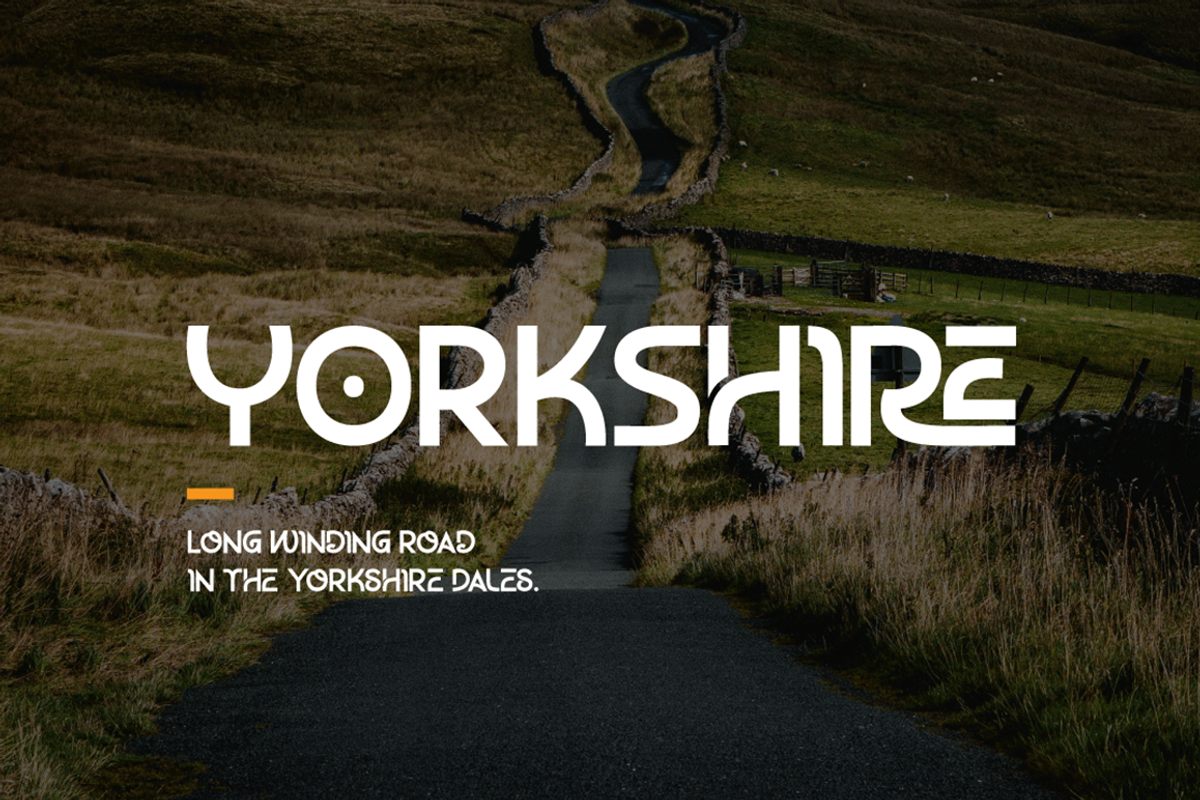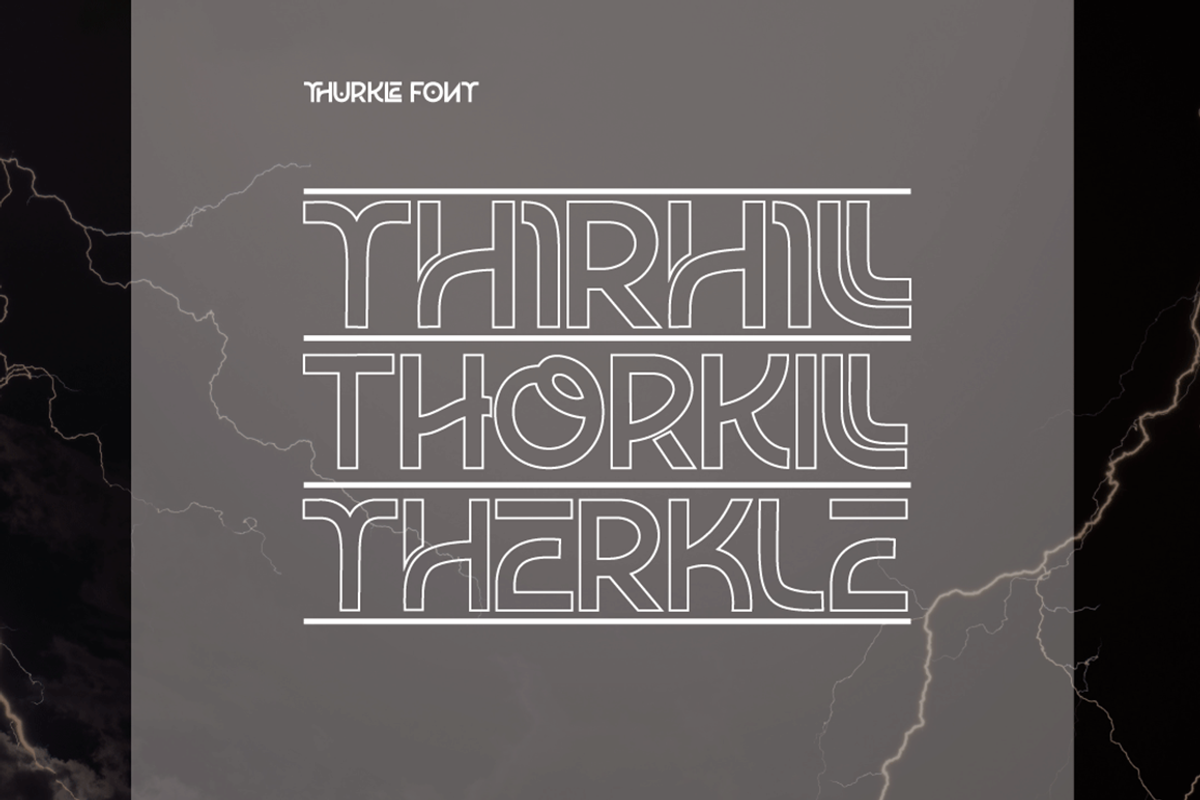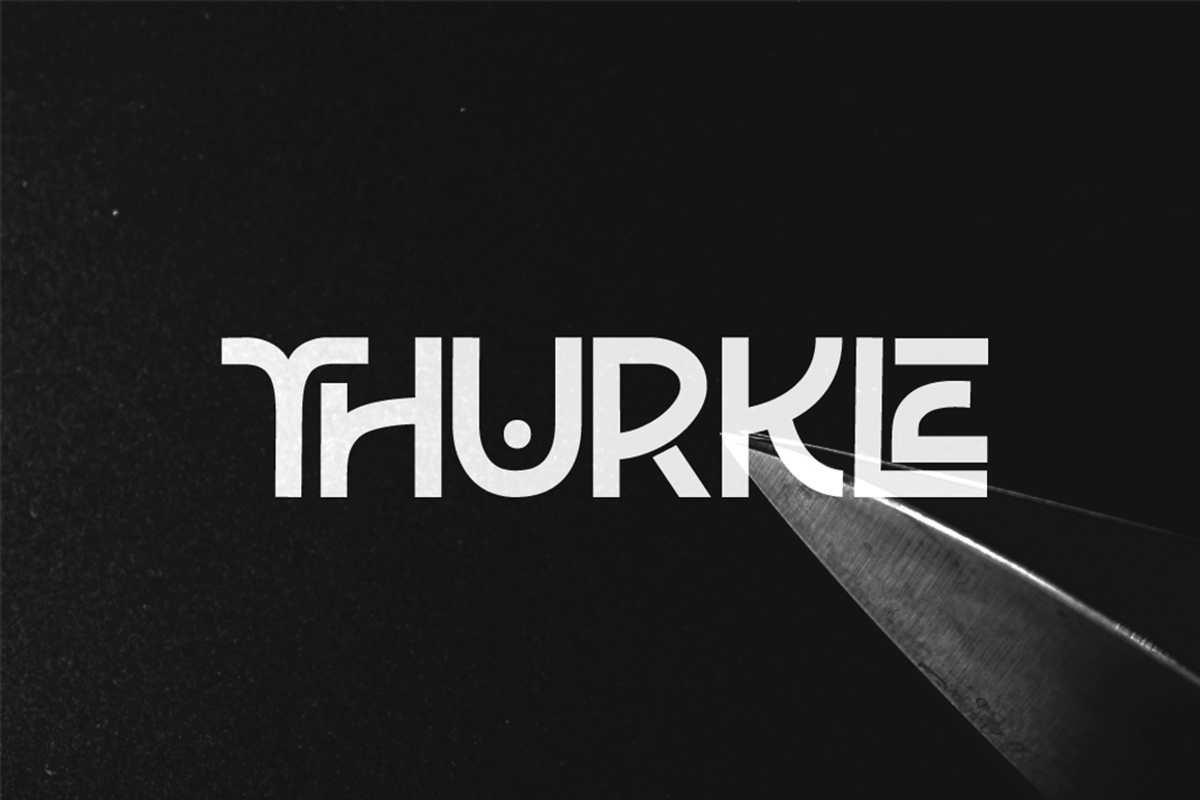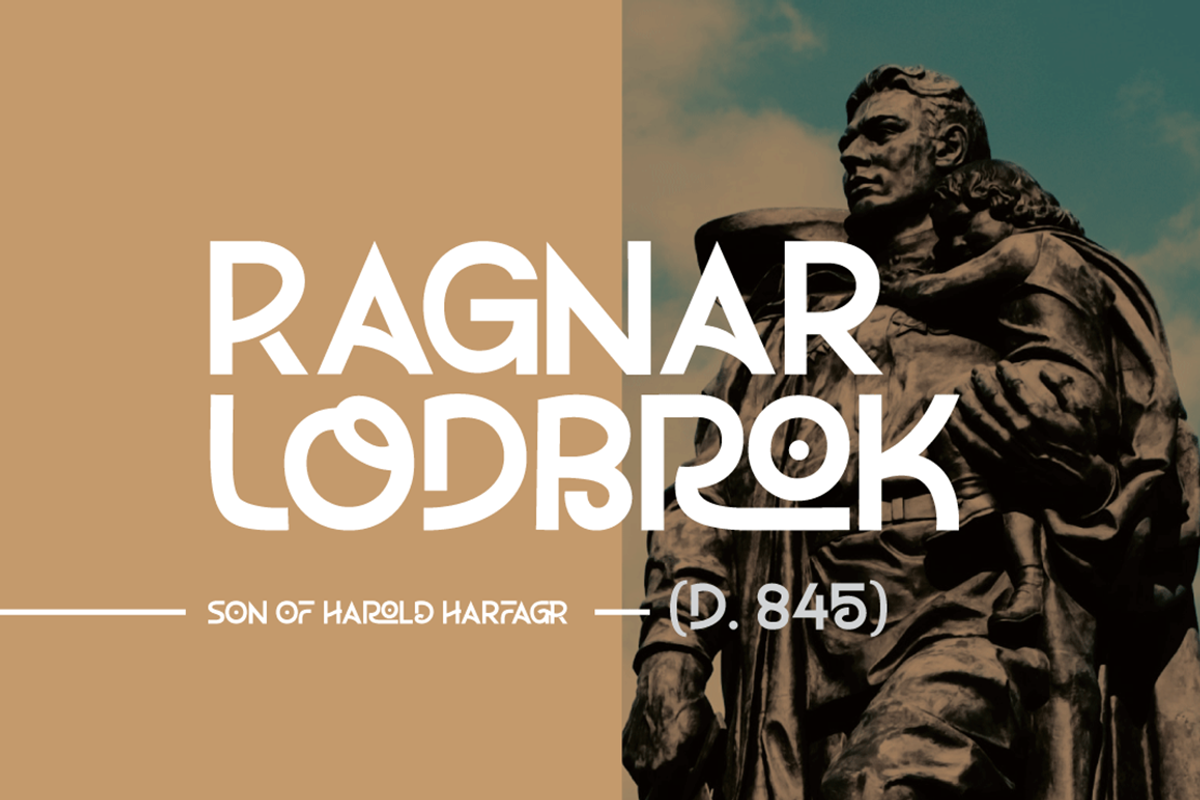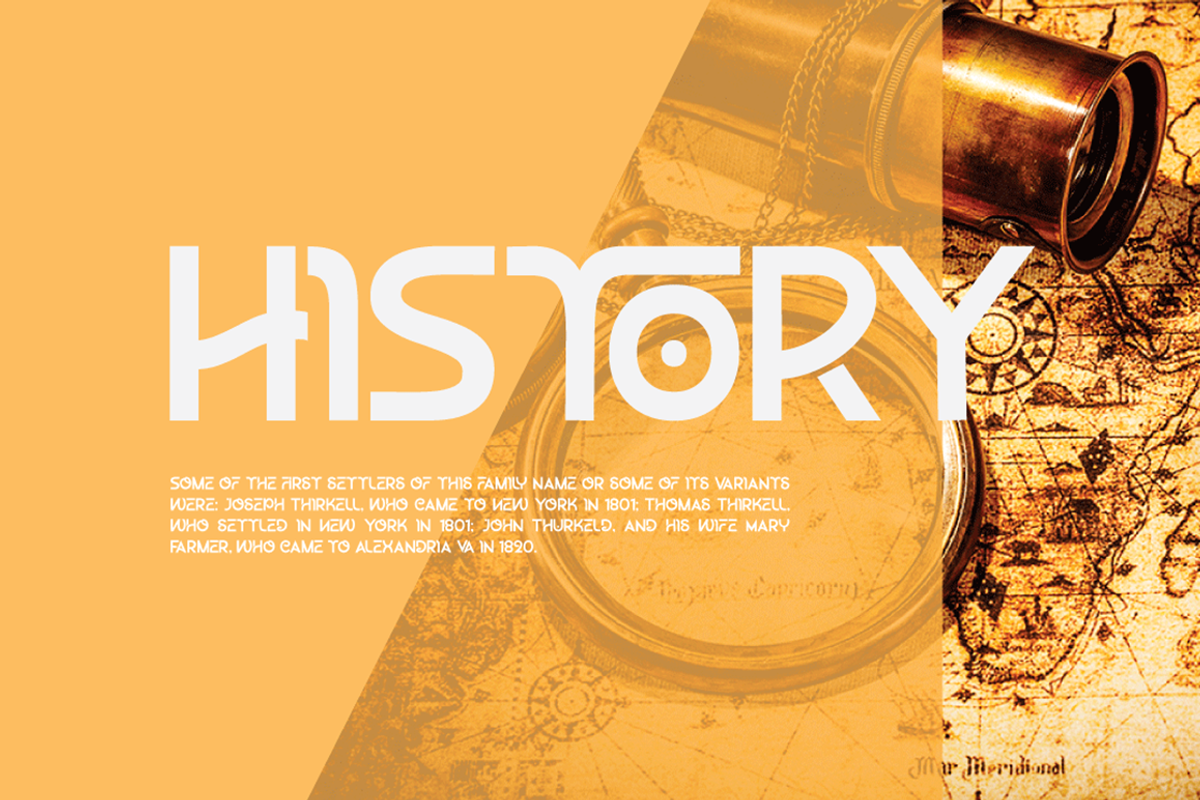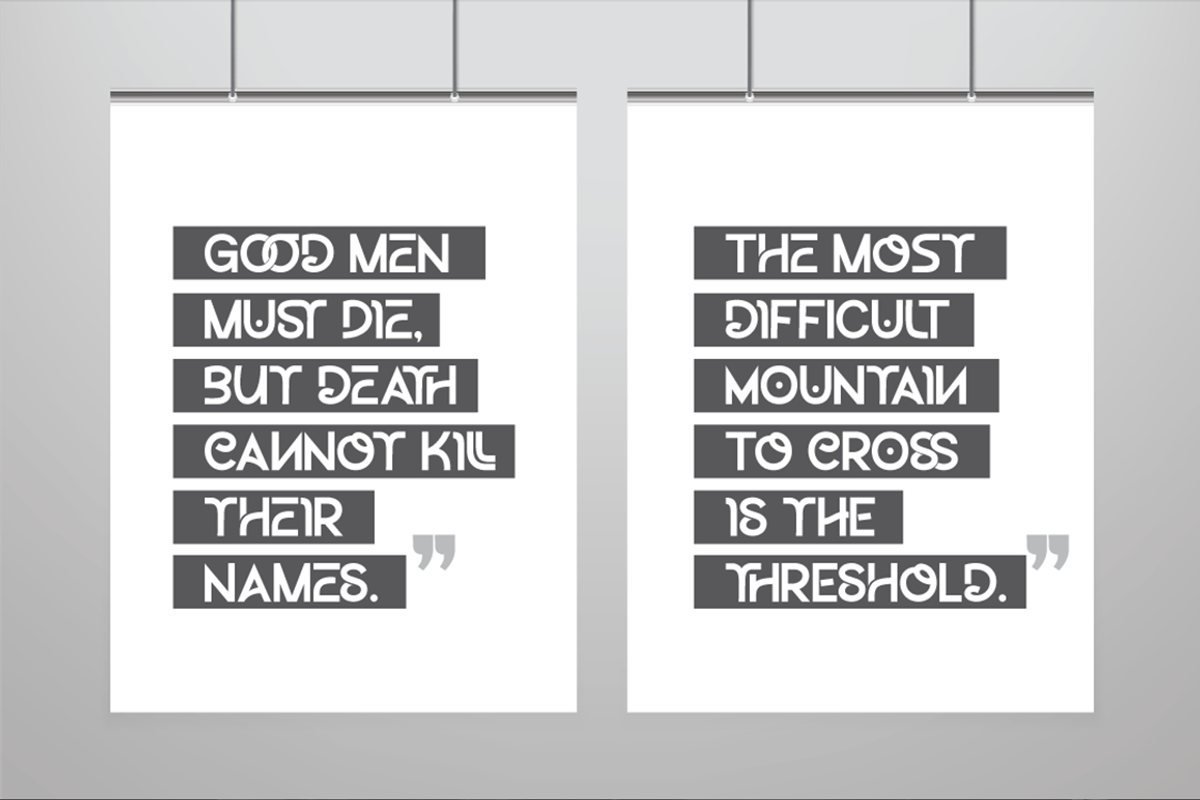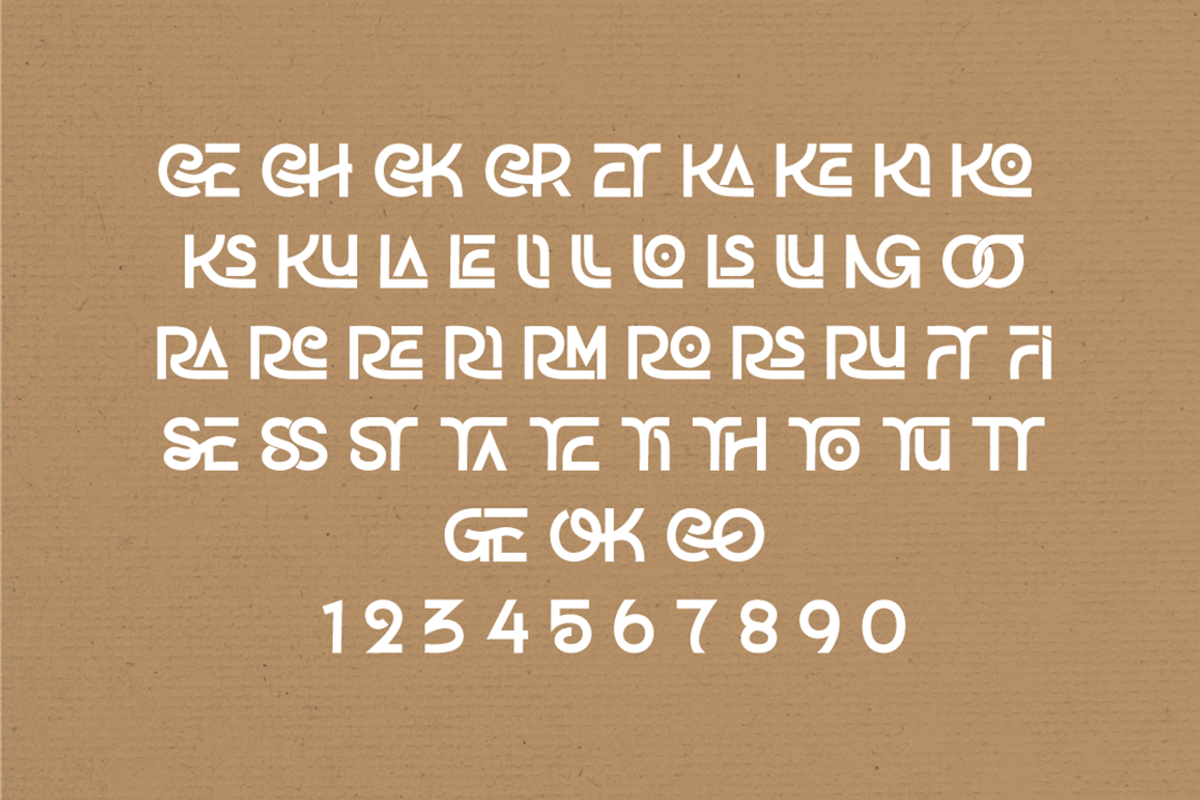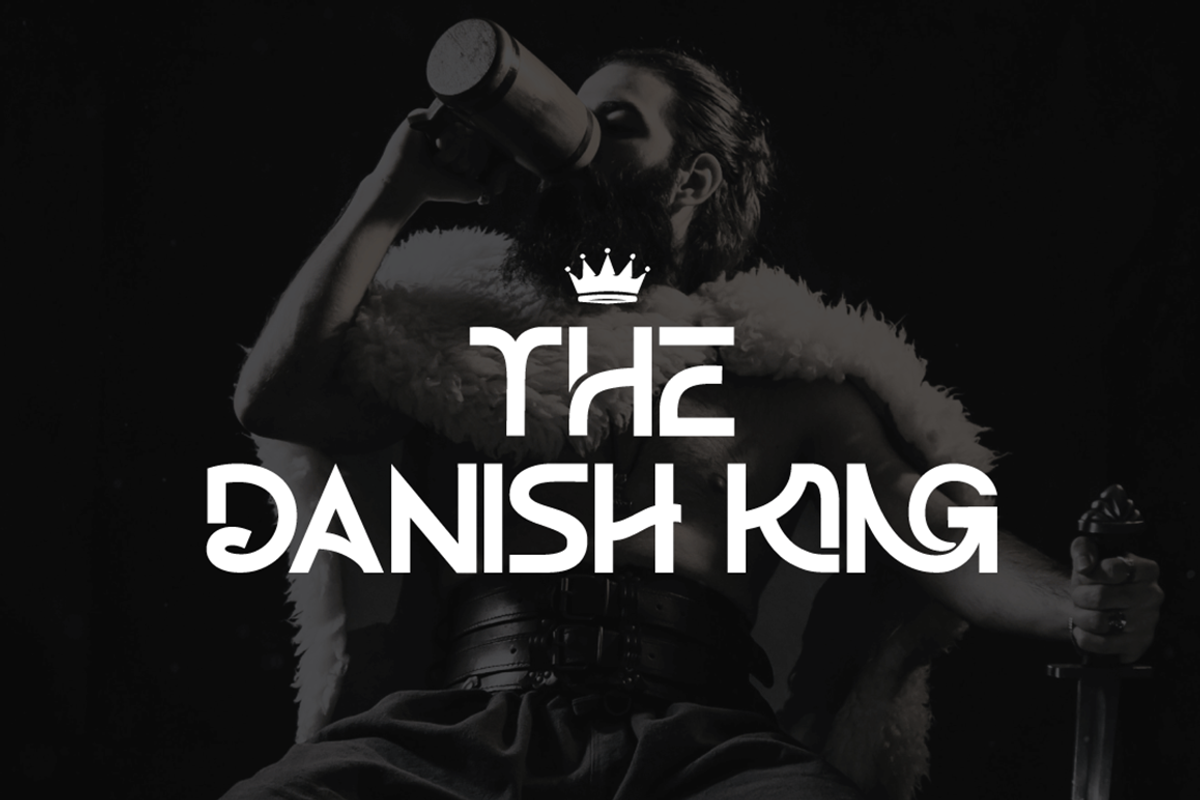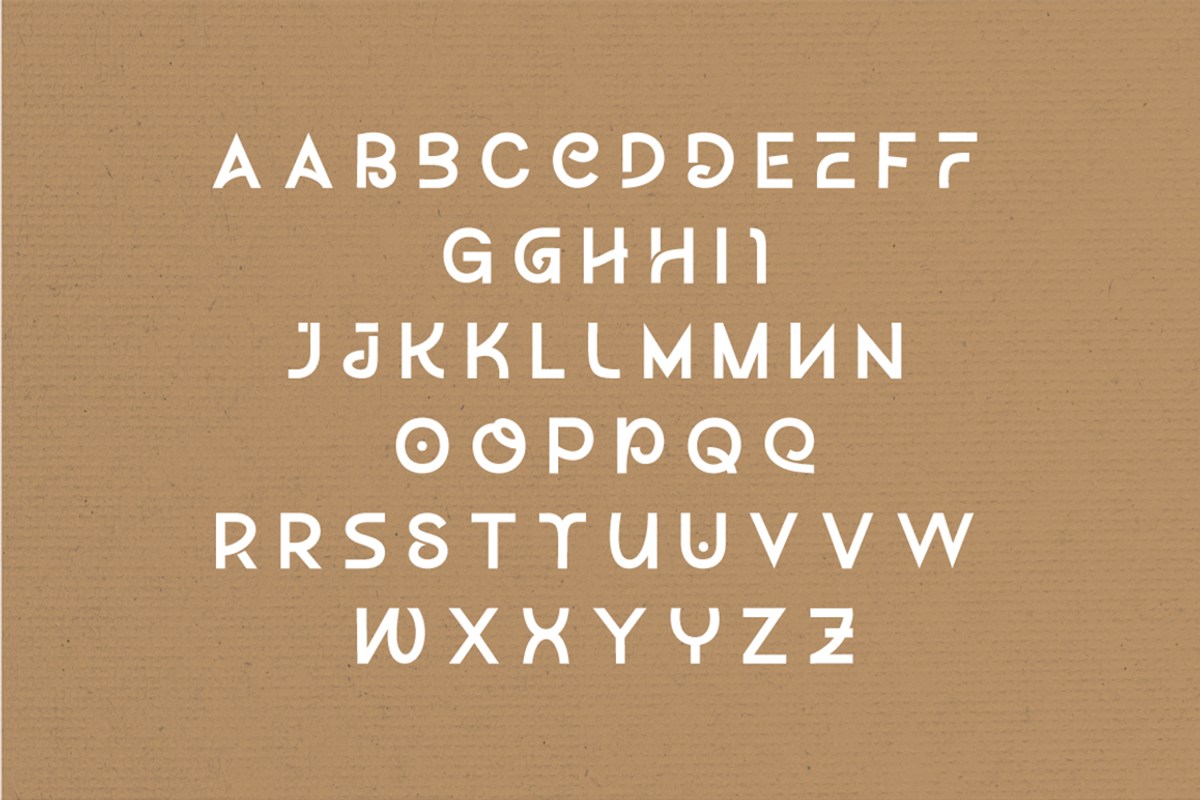
Thurkle Font
Thurkle is bold new serif font, look tough and playable. Comes with sharp edges, inspired by sword making dynasty in British History. This display typeface is semi condensed and included some extra unique ligatures. Thurkle is perfect for any project such as magazine header, flyer header, logotype, invitation card name, and some any other design.
- All Caps and Small Caps Character
- Numbers and Punctuation
- Special Characters
- Ligatures.